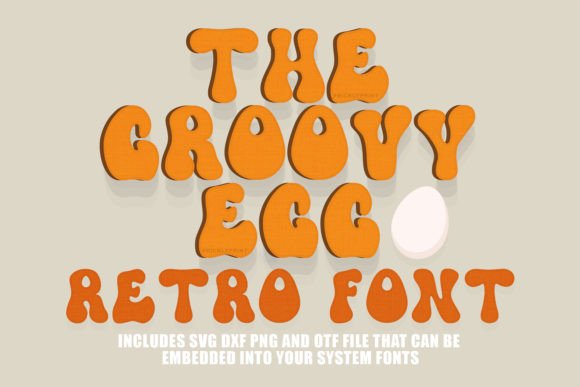
The Groovy Egg Font: A Fun and Playful Retro-Style Font for Creative Projects
Are you looking for a font that can add a touch of fun and playfulness to your creative projects? Look no further than the Groovy Egg font, a hand-drawn retro-style font that’s perfect for creating eye-catching cake toppers, T-shirt graphics, and more. In this article, we’ll take a closer look at the Groovy Egg font, its features, and how you can use it to take your designs to the next level.
What is the Groovy Egg Font?
The Groovy Egg font is a unique and quirky font that’s inspired by the fun and playful designs of the 1960s and 1970s. With its hand-drawn curves and retro-style charm, this font is sure to add a touch of nostalgia and whimsy to any project. Whether you’re creating a cake topper, T-shirt graphic, or social media post, the Groovy Egg font is the perfect choice for anyone looking to add some personality and flair to their designs.
Key Features of the Groovy Egg Font
- Hand-drawn design: The Groovy Egg font is carefully hand-drawn to create a unique and playful look that’s perfect for a wide range of creative projects.
- Retro-style charm: With its inspiration from the 1960s and 1970s, this font has a fun and nostalgic feel that’s sure to appeal to anyone who loves retro designs.
Uses for the Groovy Egg Font
The Groovy Egg font is a versatile font that can be used for a wide range of creative projects. Here are some ideas to get you started:
Cake Toppers
The Groovy Egg font is perfect for creating fun and playful cake toppers for birthdays, weddings, and other special occasions. Simply use the font to create a custom design, print it out, and attach it to your cake for a unique and eye-catching look.
T-Shirt Graphics
This font is also great for creating T-shirt graphics, whether you’re designing a custom tee for a friend or creating a branded shirt for your business. The Groovy Egg font is easy to read and has a fun, playful vibe that’s sure to appeal to anyone who sees it.
Social Media Posts
The Groovy Egg font can also be used to create eye-catching social media posts that are sure to stand out from the crowd. Use the font to create custom graphics, quotes, or messages that showcase your personality and style.
Tips and Tricks for Using the Groovy Egg Font
Here are some tips and tricks to help you get the most out of the Groovy Egg font:
Experiment with Different Sizes and Colors
Don’t be afraid to experiment with different sizes and colors of the Groovy Egg font. This font looks great in bold, bright colors, but it can also be used in more subtle, pastel shades.
Combine with Other Fonts
The Groovy Egg font can be combined with other fonts to create a unique and eye-catching look. Try pairing it with a bold, sans-serif font for a fun and playful contrast.
Use for Headings and Titles
The Groovy Egg font is perfect for headings and titles, where you want to make a bold statement. Use it to create eye-catching headlines, titles, and captions that draw the reader in.
The Groovy Egg font is a fun and playful retro-style font that’s perfect for creative projects of all kinds. With its hand-drawn curves and nostalgic charm, this font is sure to add a touch of personality and whimsy to any design. Whether you’re creating cake toppers, T-shirt graphics, or social media posts, the Groovy Egg font is a great choice for anyone looking to add some fun and flair to their designs.